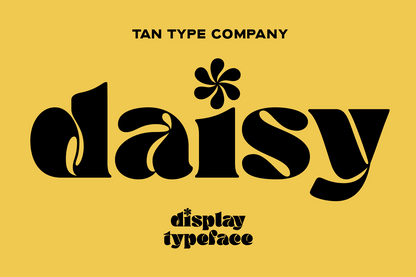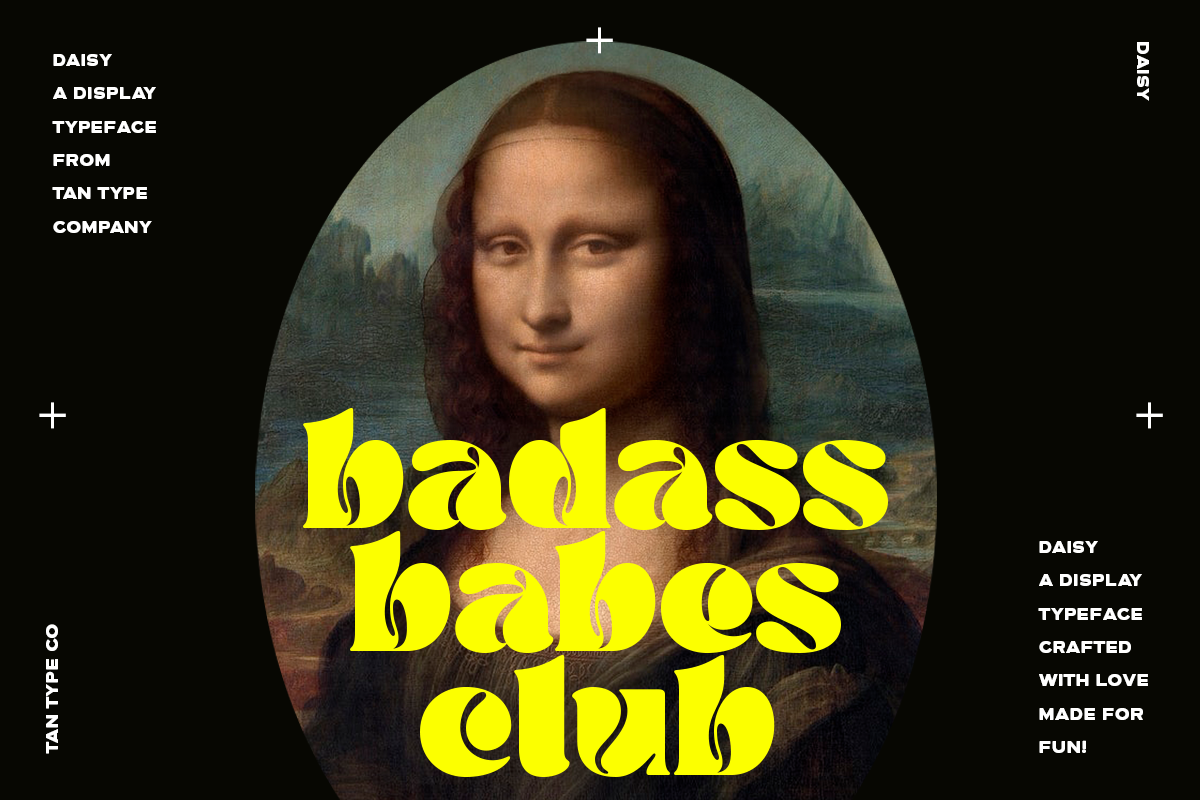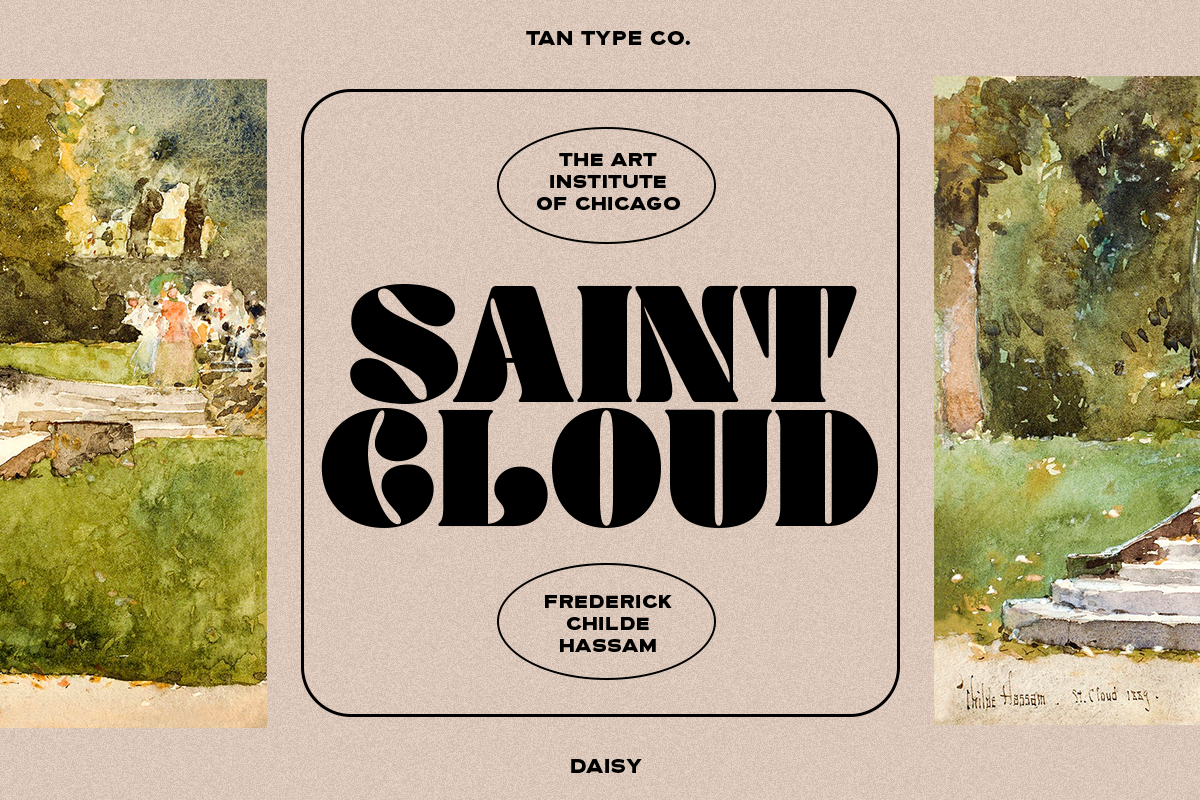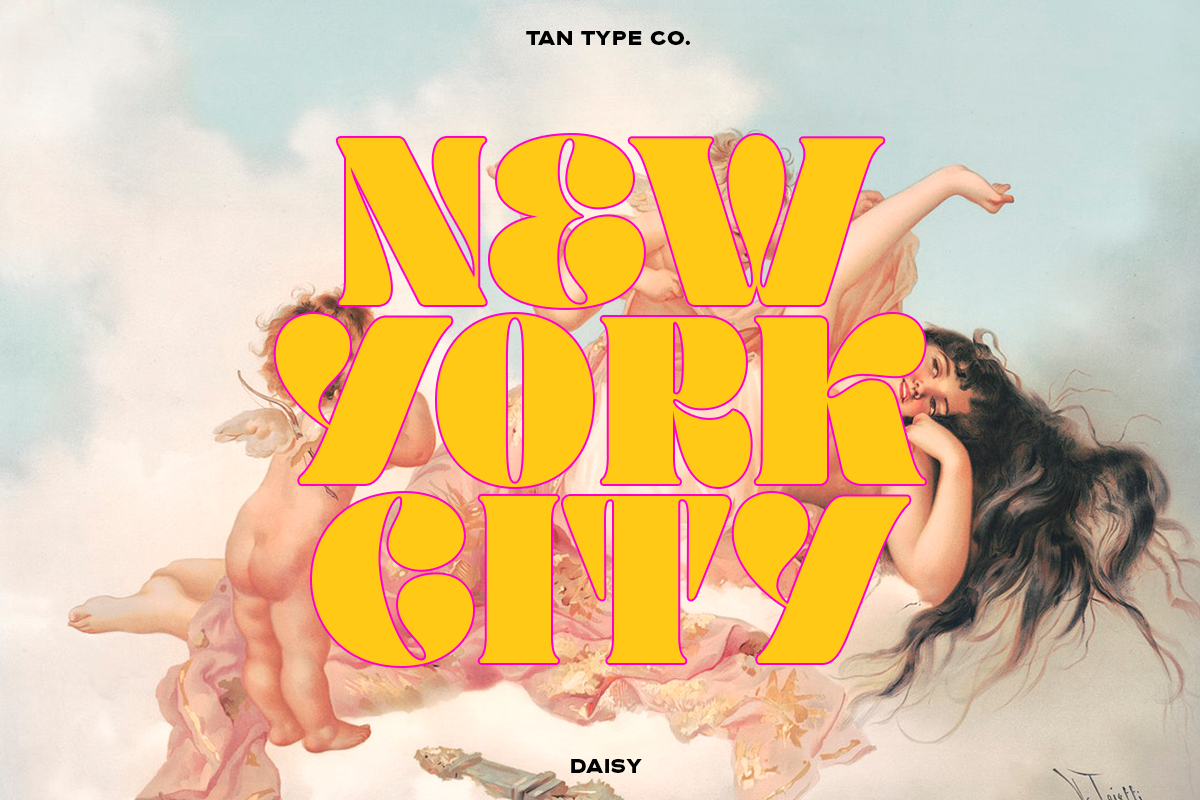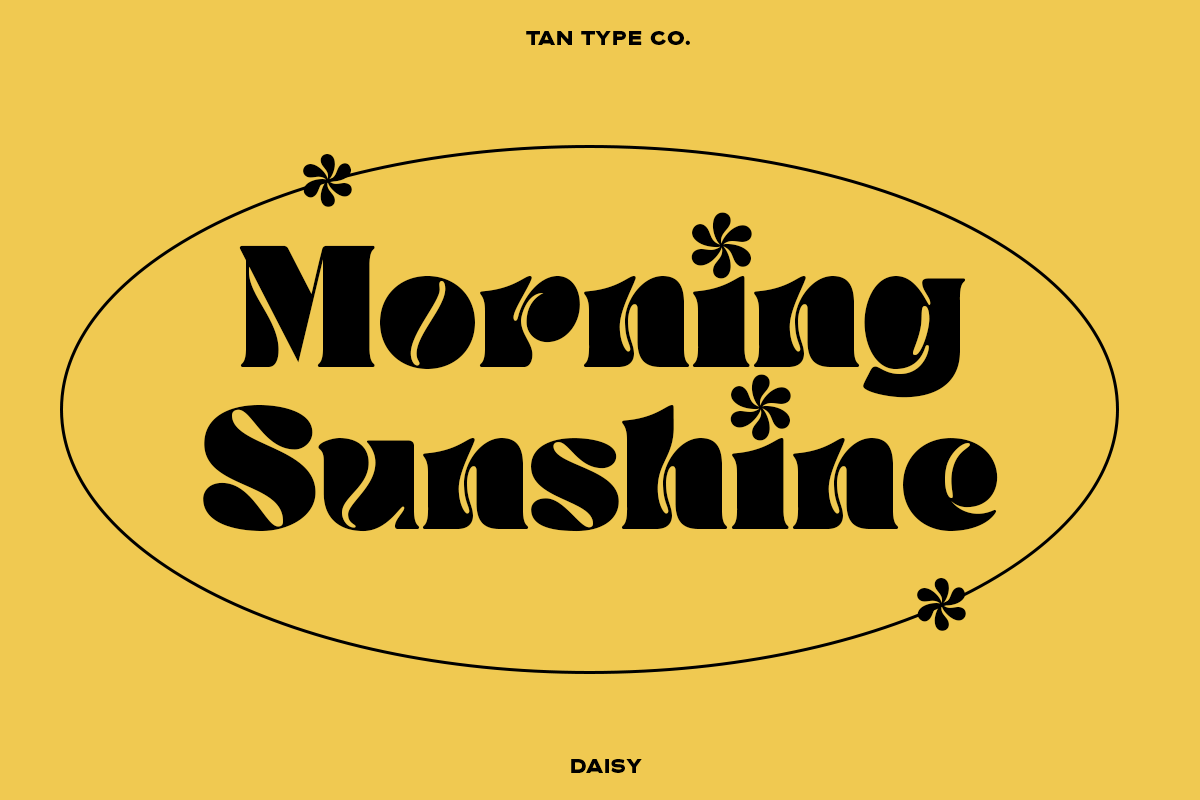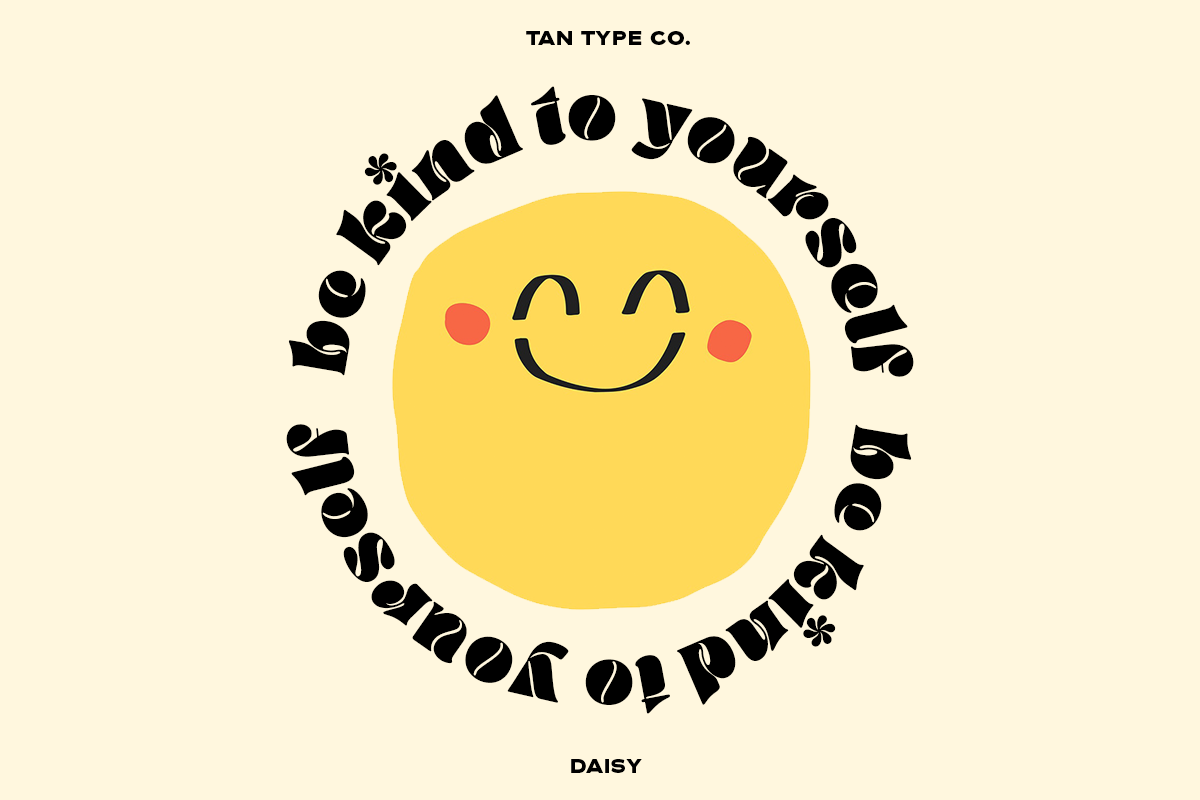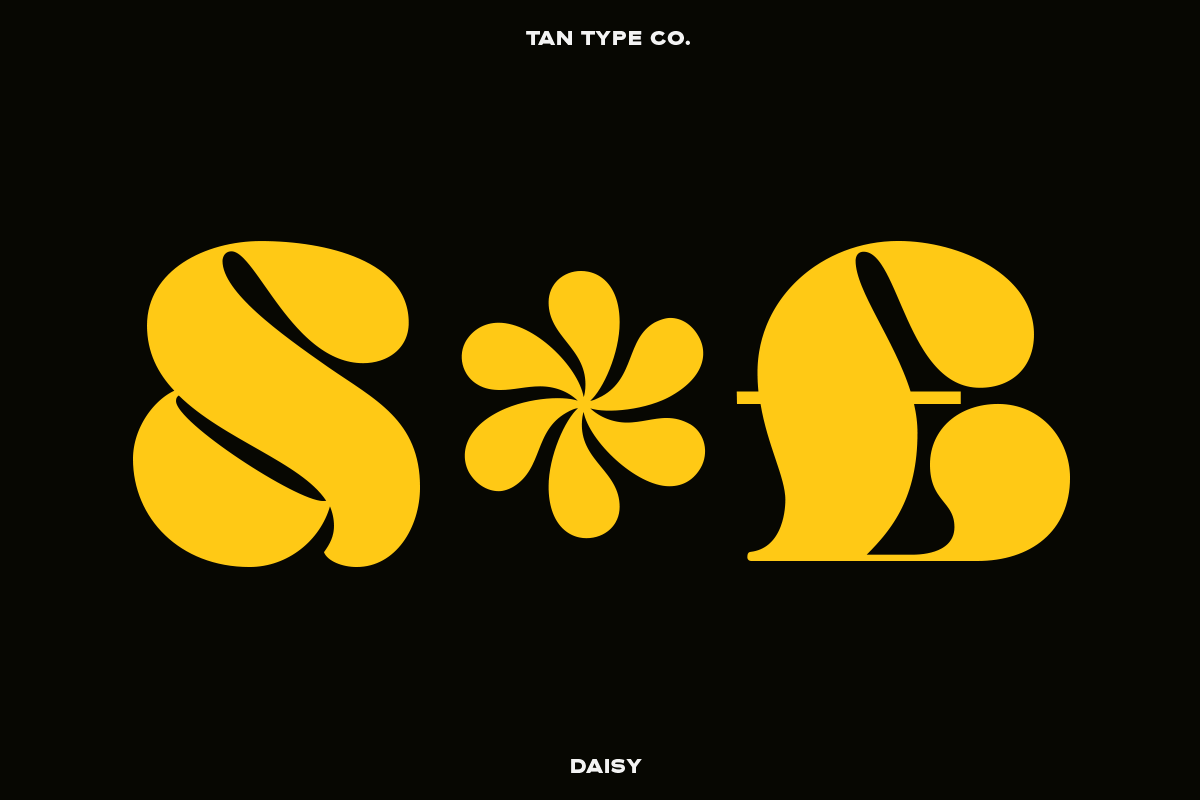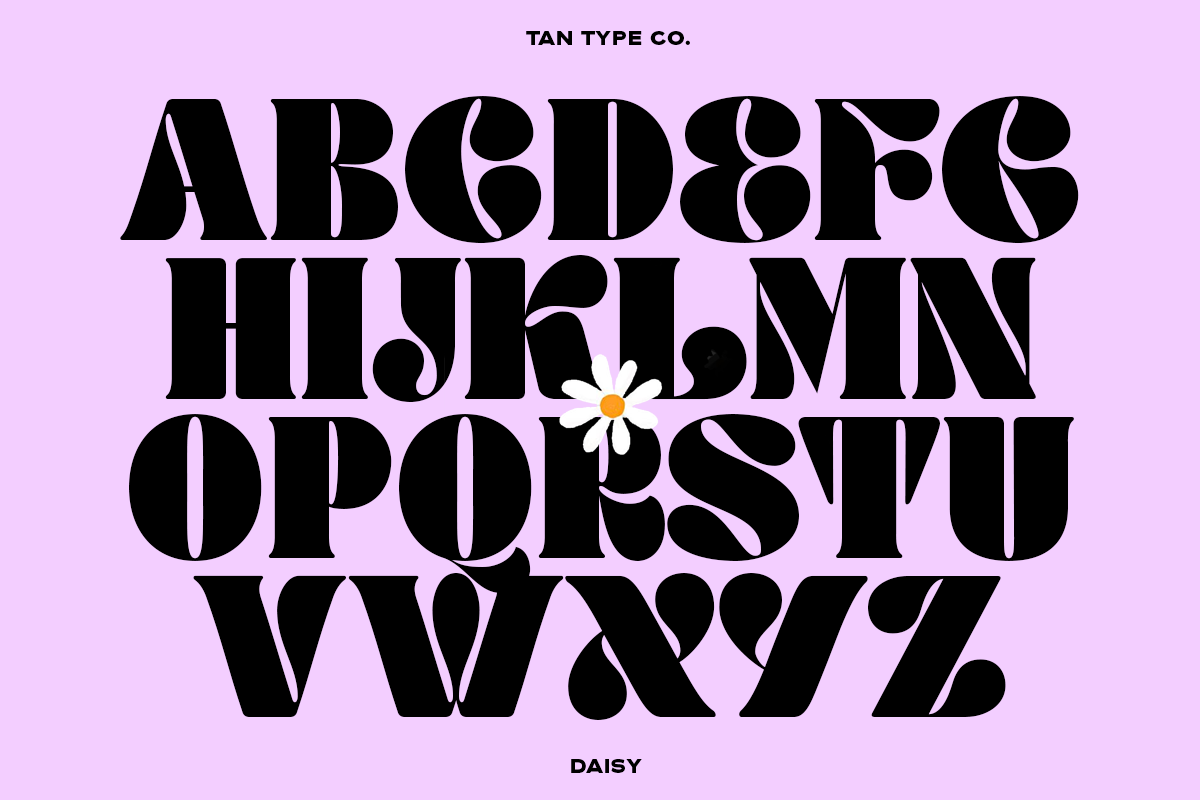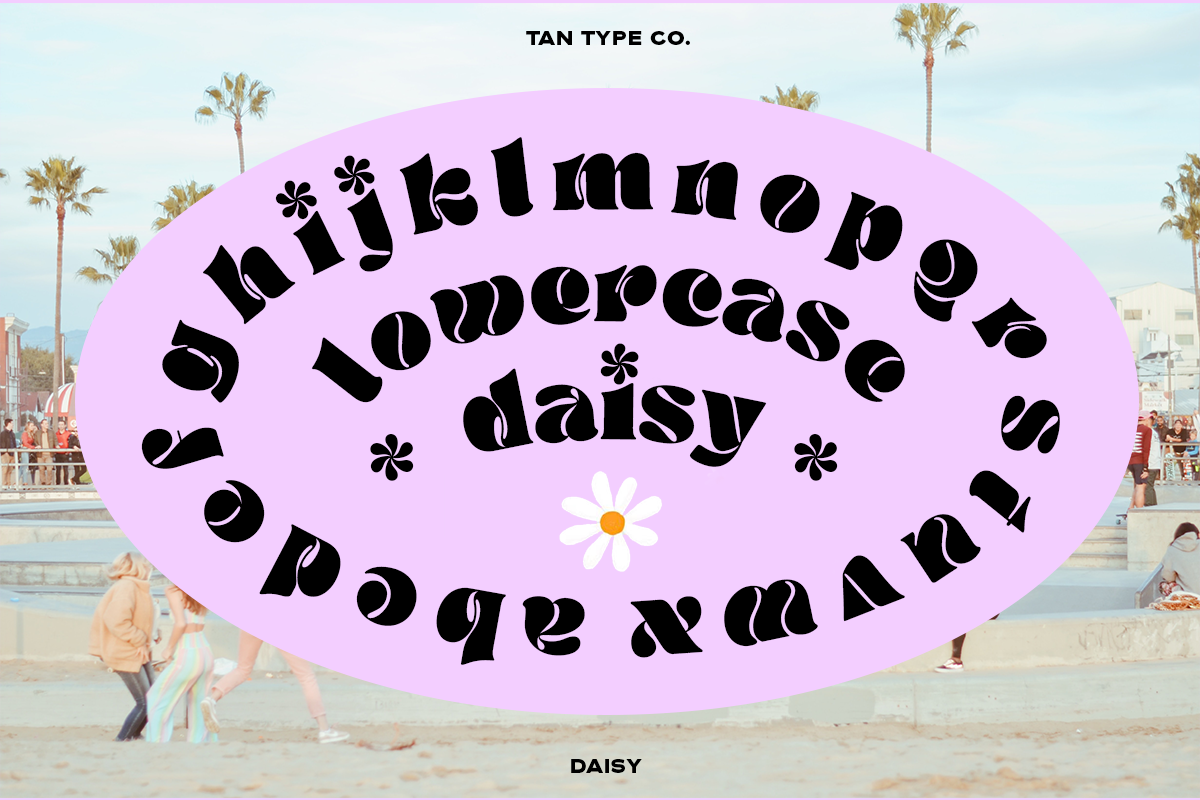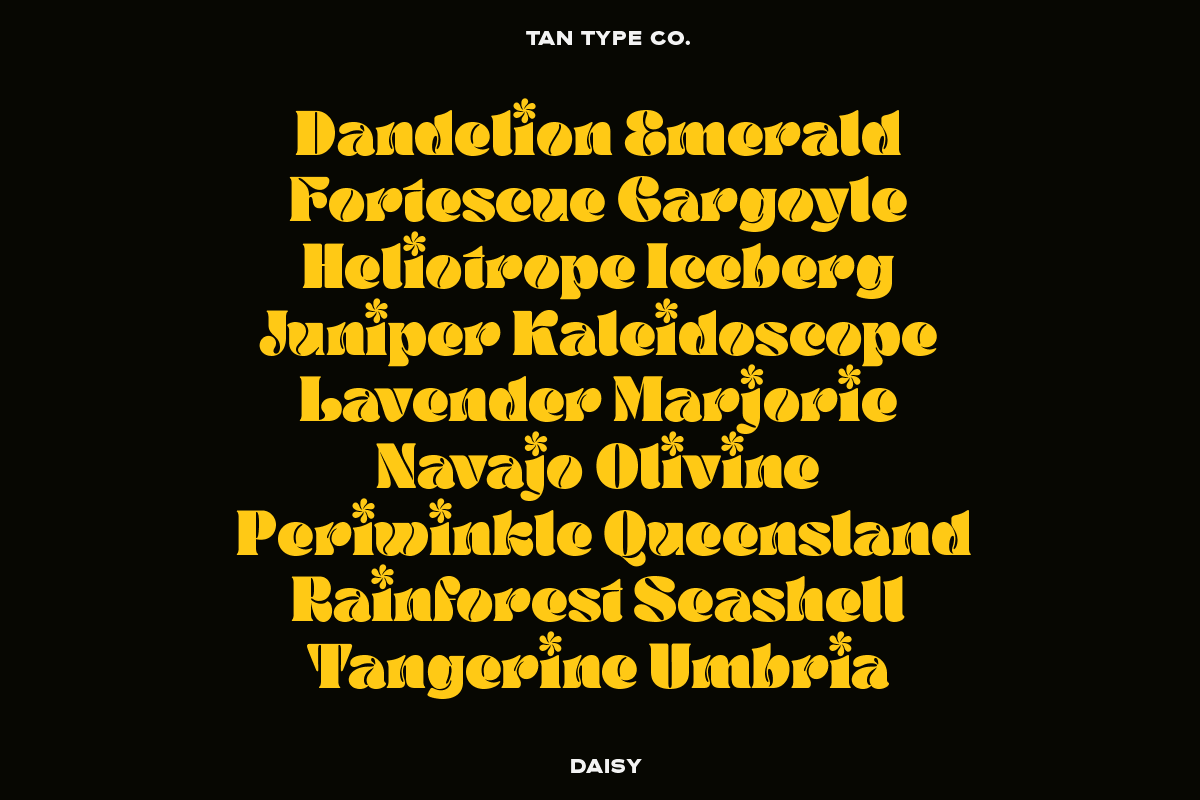
DAISY is a bold and joyful display typeface with retro curves and playful flair. Its thick, petal-like strokes and dramatic contrast create a lively rhythm, making each letter feel like a statement of vibrant, vintage-inspired personality.